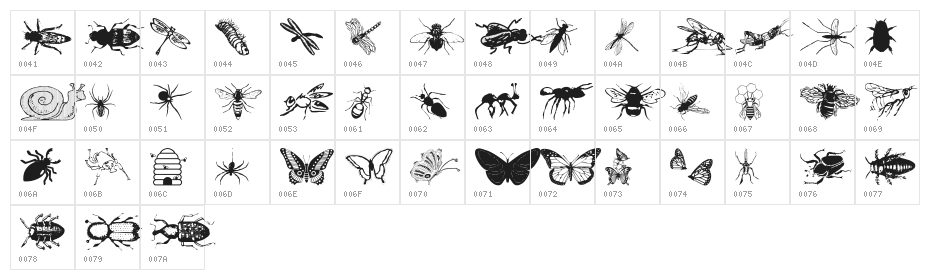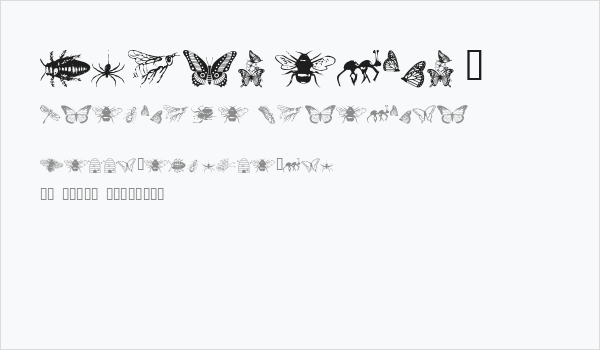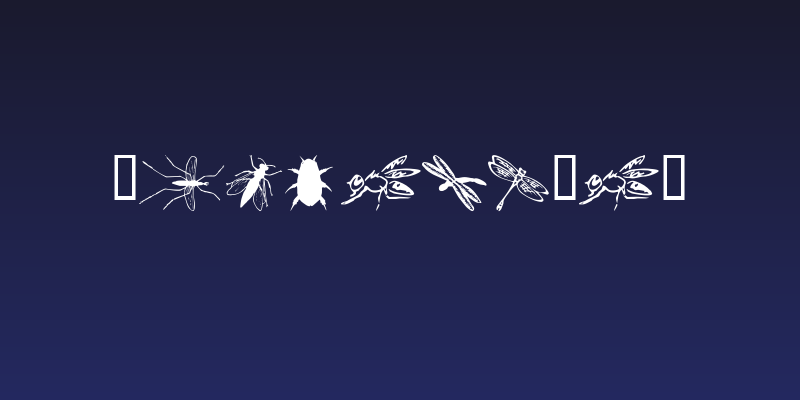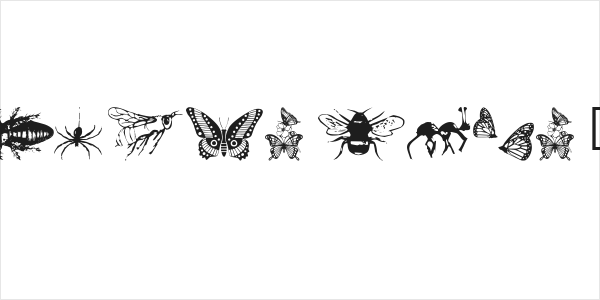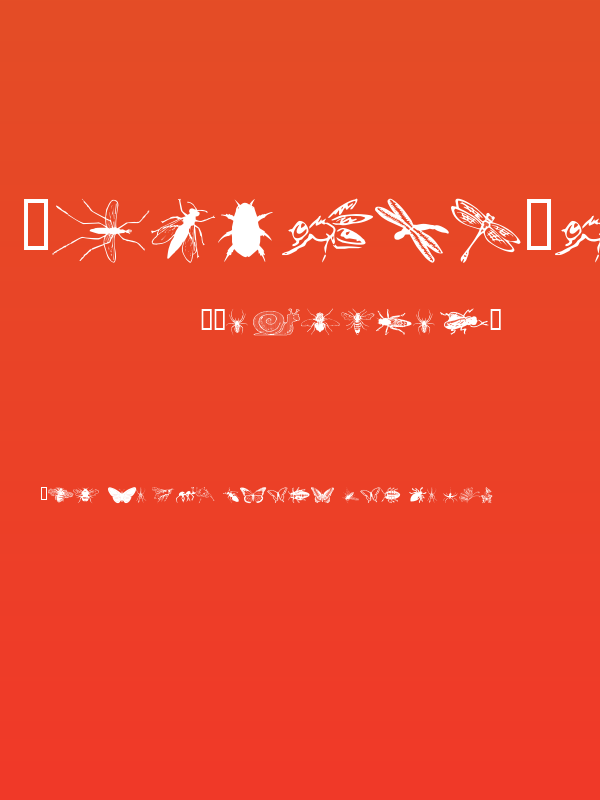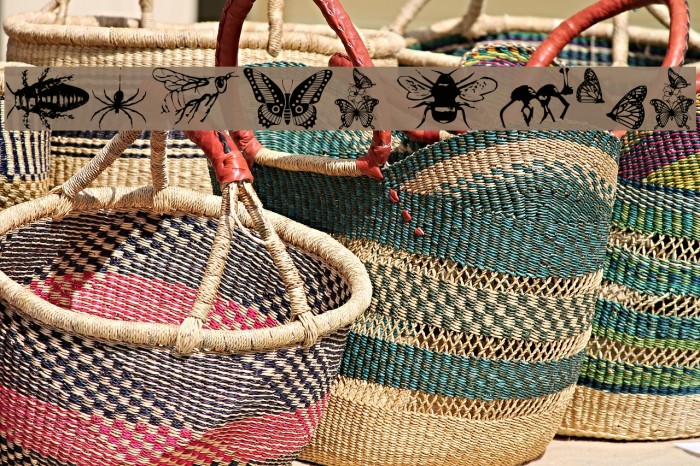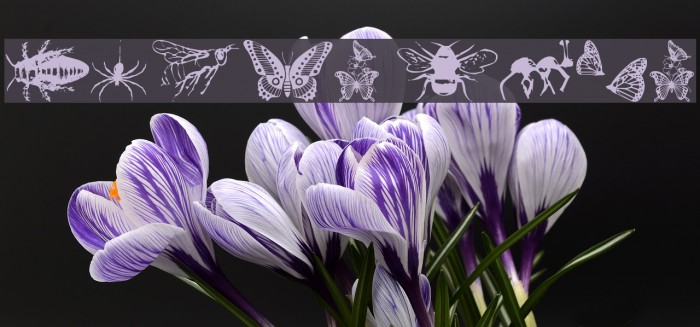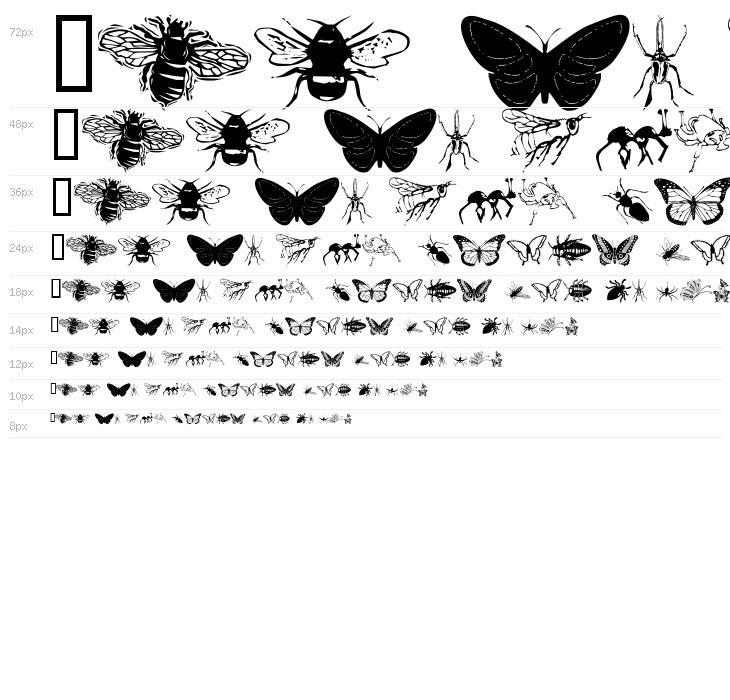
wminsects1 Font
wminsects1 Description
A decorative dingbat font featuring detailed black-and-white illustrations of various insects, spiders, snails, and related creatures, with each glyph representing a different species or insect-related object.
| Overall Style | Decorative, Nature-inspired |
| Use Case | Illustrative icons, embellishments, thematic dividers |
| Proposed Projects | Educational materials, children's books, nature-themed designs, scrapbooking, decorative borders, science posters. |